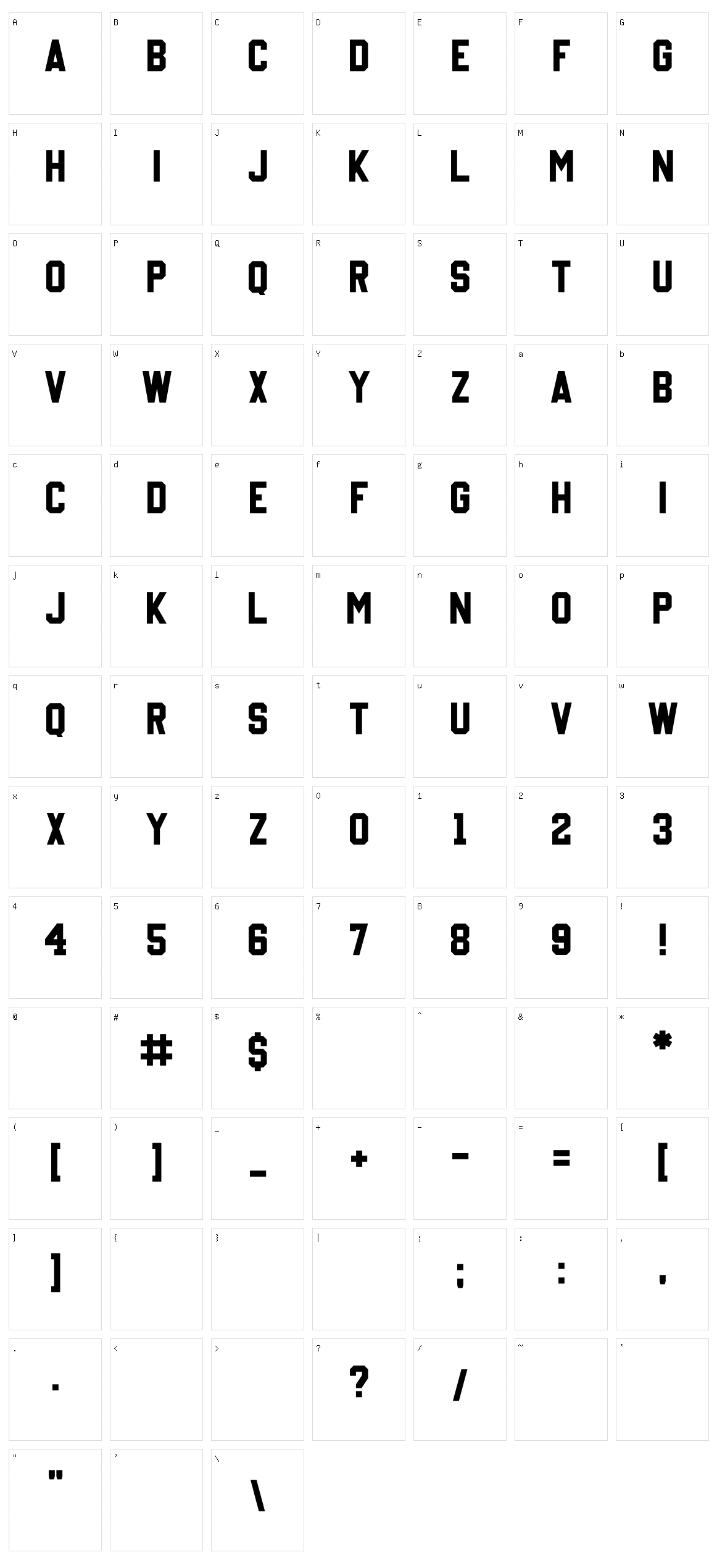
The free font Basketball is carefully designed by Akhmad Afandhi, showcasing a thoughtful balance of creativity and usability and falls under the Old School font style. When you download the ZIP file, it contains only 5.97 KB of font files, making it lightweight and quick to download. Please review the license details below to understand permitted usage and distribution rights. If license information is not available, we recommend using this font for personal projects only or contacting the author directly for commercial usage permissions.